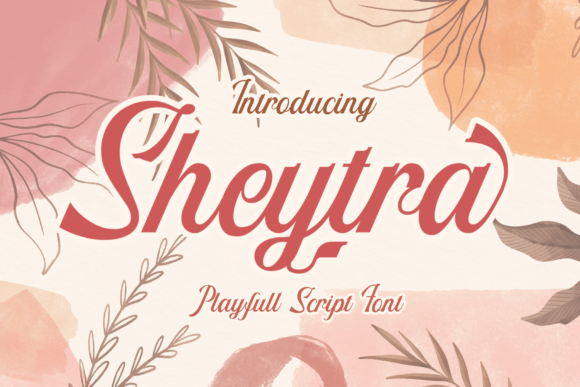
Dive into the enchanting realm of Sheytra, a display font that exudes the essence of femininity and boundless creativity. Each stroke is a testament to elegance, designed to elevate your artistic visions to new heights. Whether you're a seasoned designer or a budding enthusiast, Sheytra will ignite your imagination and inspire you to create captivating designs that leave an everlasting impression.
With its bold and expressive characters, Sheytra is the perfect choice for capturing the spirit of girly tattoos. Its intricate details and sweeping curves evoke a sense of grace and allure, making it an ideal selection for any design that seeks to convey a touch of whimsy and enchantment. Unleash your inner artist and let Sheytra guide you towards creating stunning tattoos that will turn heads and spark conversations wherever you go.
But Sheytra's versatility extends far beyond the realm of tattoos. Its adaptability makes it a true all-rounder, capable of transforming a multitude of design concepts into captivating masterpieces. From eye-catching branding materials to exquisite invitations, Sheytra has the power to add a touch of sophistication and elegance to any project. Its charming nature brings forth a sense of warmth and approachability, making it perfect for creating designs that connect with audiences on an emotional level.
Embrace the beauty of self-expression with Sheytra, a font crafted to empower your creativity and unlock your artistic potential. Let its graceful strokes inspire you to craft designs that resonate with your unique style and leave an indelible mark on the world. Experience the magic of Sheytra today and witness the transformative power of typography unfold before your very eyes.